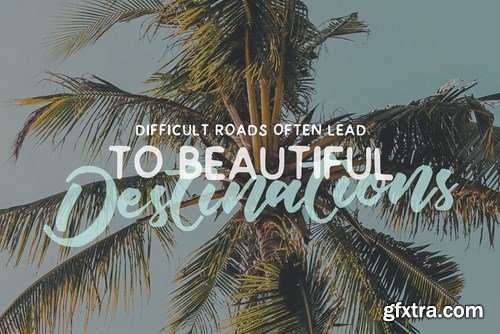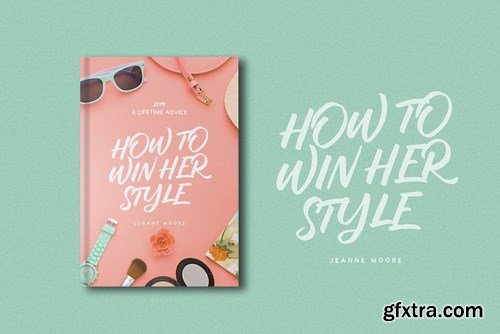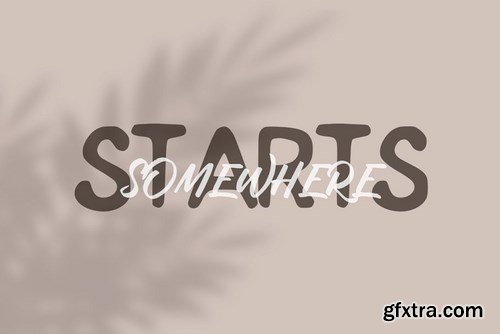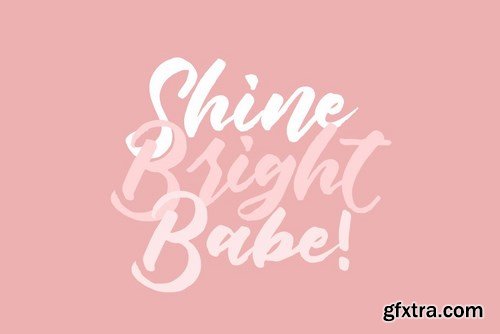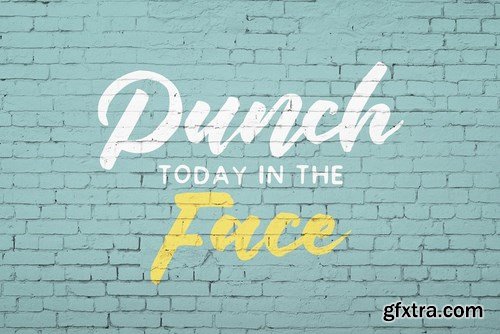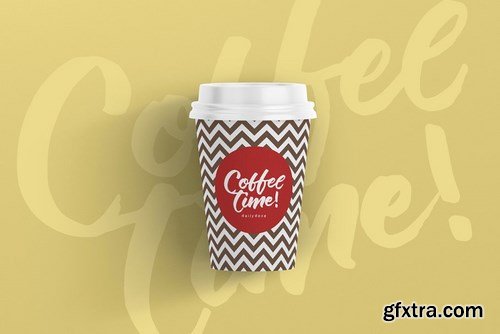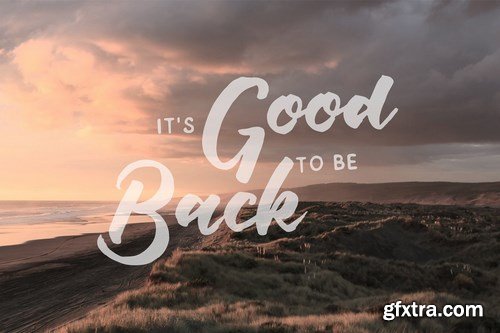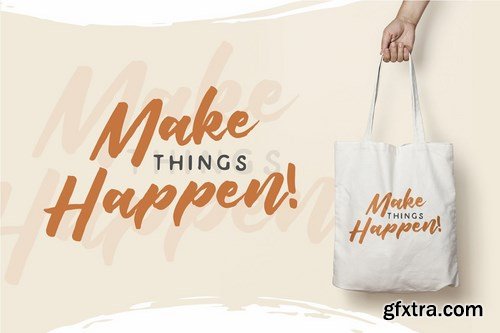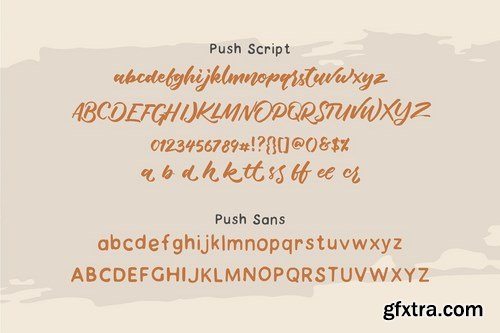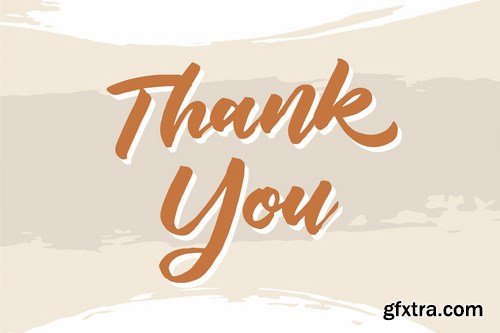
Introducing Push Font Duo! A handwritten font collection with brush style that perfect for any project or branding, designs that you have.
Details: Push Font include 2 font files: Push Script. Handwritten script font contains upper and lowercase character, range of punctuation and numerals. Push Sans is also made for both lower and uppercase character. Fonts are provided in OTF Formats. Ligatures are available for several characters (double-letters which flow more naturally).